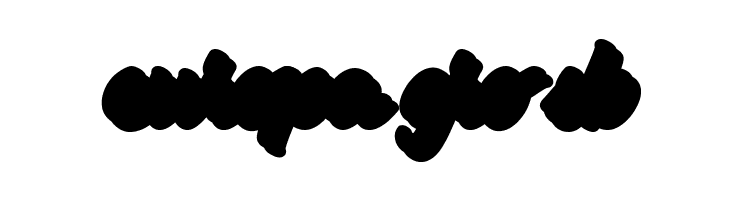
A playful and elegant script font with flowing, cursive letters.
An elegant script font with flowing, handwritten-style characters.
A graceful script font with fluid, connected letters and a refined aesthetic.
An elegant, flowing script font with graceful, cursive letterforms.
An elegant, cursive script font with flowing, connected letters and high contrast strokes.
An elegant, flowing script font with a handwritten aesthetic.